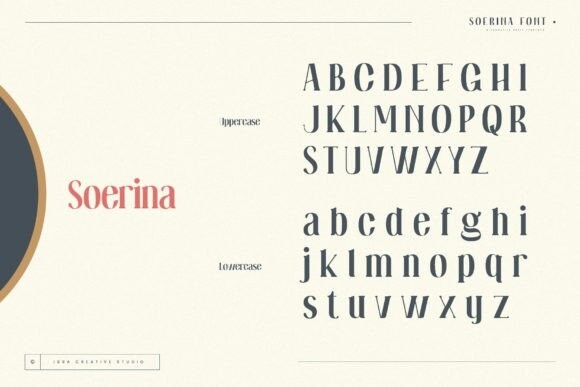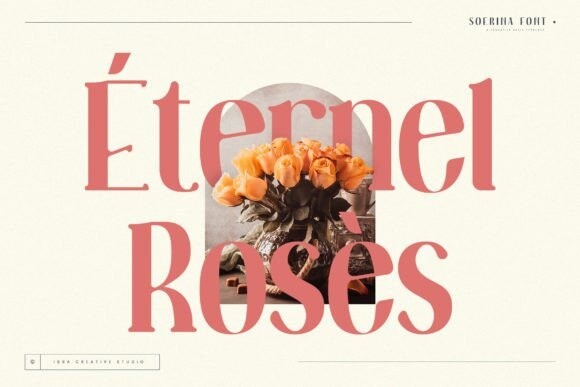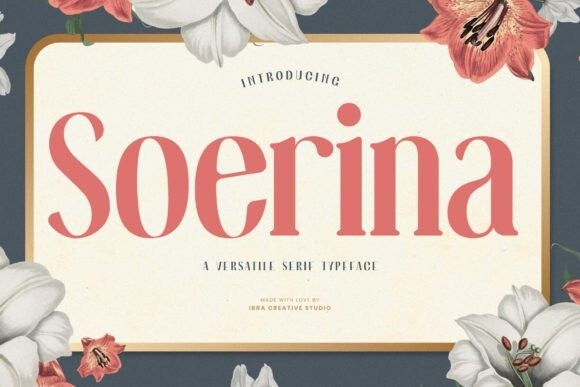
Soerina Font
Soerina Font, a versatile serif typeface, embodies a harmonious blend of classic elegance and contemporary functionality. With its meticulously crafted letterforms, Soerina strikes a balance between sophistication and readability, making it suitable for a diverse range of design applications. The typeface exhibits a timeless aesthetic, featuring subtly modulated serifs that lend a touch of refinement to each character.